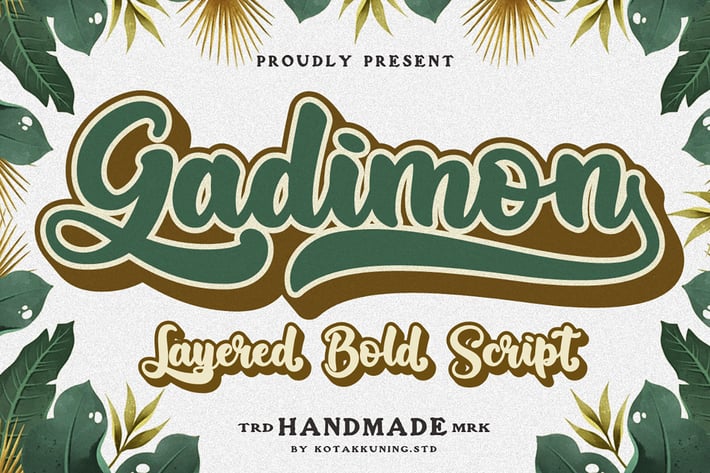
Gadimon Layered Script Font
Introducing Gadimon Layered Bold Script. This font is used with the layers method, so it can generate interesting fonts to see, you no longer need to worry about how to make an effect on the text.
This font is suitable to use as a logotype, product designs, label, watermark, social media posts, apparel, invitation, signboard, sports club, motor/car, or special events.